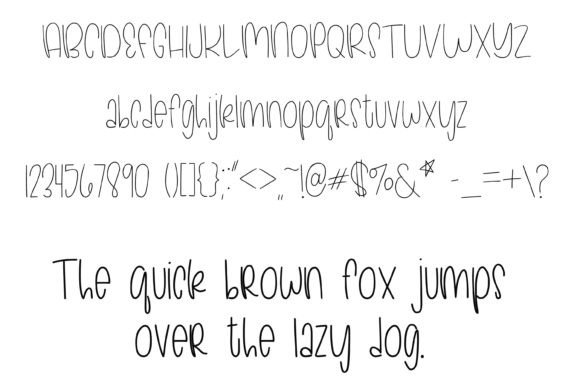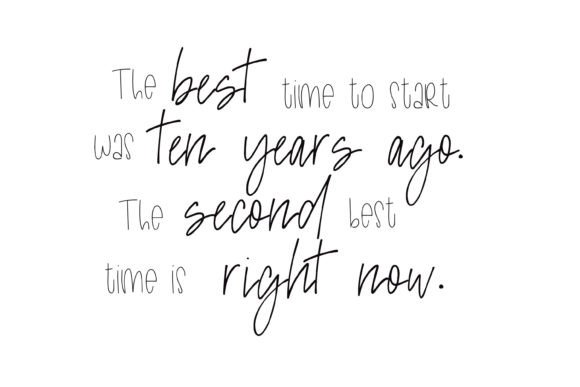
Fresh Blackberries Handwriting Font – Playful and Modern Typeface
The Fresh Blackberries Handwriting Font is a fun and playful typeface designed to bring personality and charm into your creative work. With its mixed-case style and casual flow, it feels natural, energetic, and friendly. This font adapts easily to many design needs, from digital graphics to print materials, and pairs especially well with script fonts for a balanced and stylish look.
A Playful Handwriting Style
What sets the Fresh Blackberries Handwriting Font apart is its relaxed handwritten appearance. The varied strokes and mixed-case letters create a sense of movement and energy, making your text look fresh and approachable. Designers love how it can be both fun and versatile, working for everything from posters to product packaging.
Perfect for Cards and Creative Projects
This font shines when used for greeting cards, invitations, and craft projects. The Fresh Blackberries Handwriting Font adds a playful touch that makes messages feel warm and personal. It also fits well into digital projects, including social media graphics and blog headers. With its approachable design, it quickly becomes a favorite in creative toolkits.
Handwritten Charm with Modern Appeal
While playful and casual, this typeface also carries a clean modern vibe. The Fresh Blackberries Handwriting Font is versatile enough for branding projects, posters, and event materials. Its lively yet balanced style ensures it looks good in both large displays and smaller text sizes, making it reliable for many applications.
Why Designers Choose This Typeface
Designers value fonts that combine creativity with usability, and this one delivers both. The Fresh Blackberries HandwritingFont is bold enough to attract attention yet soft enough to maintain a friendly tone. Its adaptability across print and digital formats makes it a practical addition to any designer’s font collection.